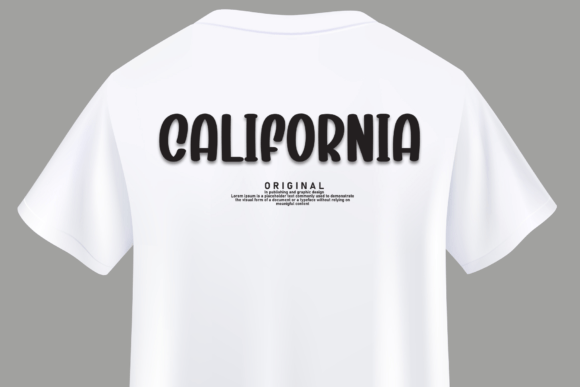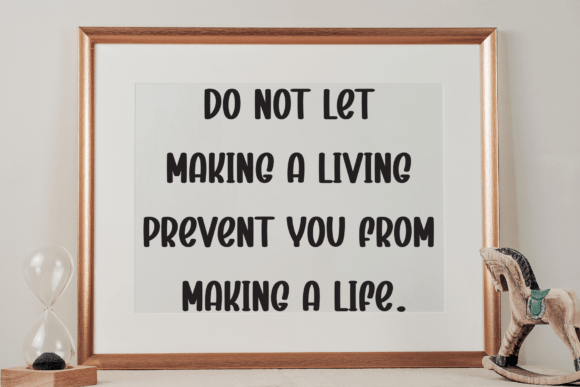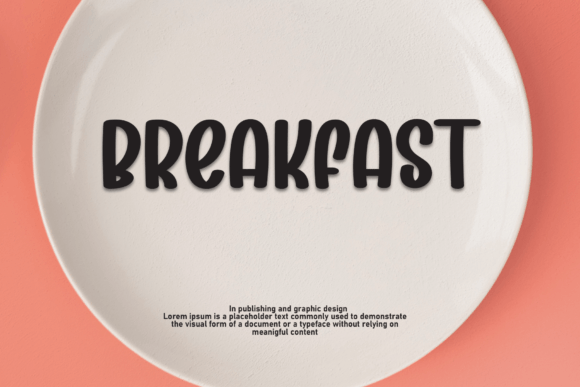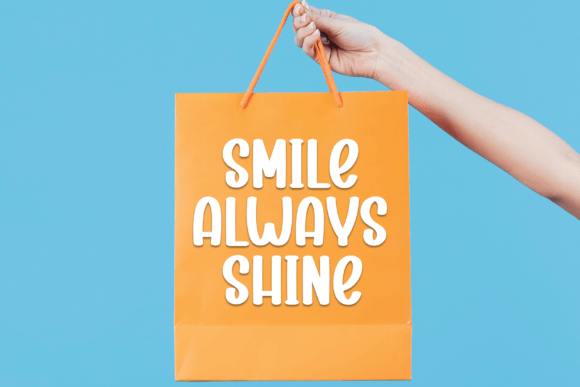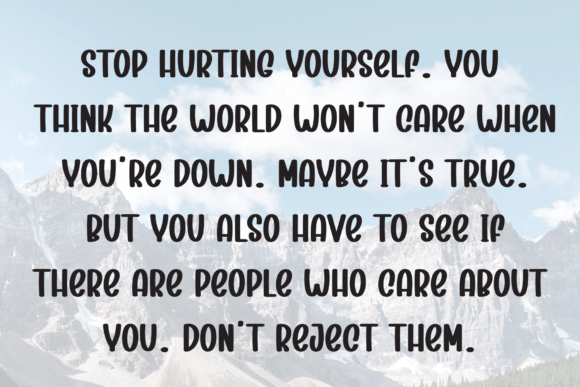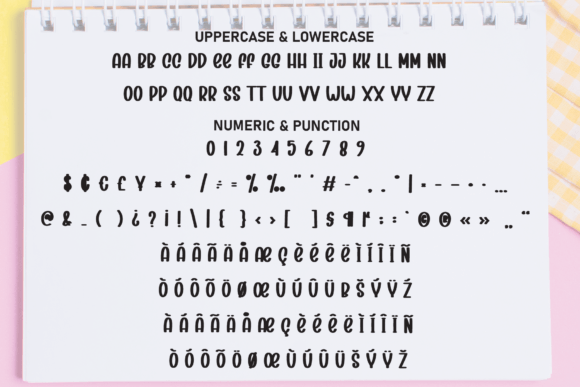
Discover the Charm of Good Notes Font: Elevate Your Designs with a Relaxed, Handwritten Touch
In the world of typography, fonts play a crucial role in conveying the tone and personality of a design. For those seeking a casual, yet charming aesthetic, Good Notes font is an excellent choice. This handwritten font is designed to capture a relaxed and friendly vibe, making it perfect for personal projects, social media, and invitations. In this article, we’ll explore the features and benefits of Good Notes font, and how it can add a touch of warmth and authenticity to your designs.
The Essence of Good Notes Font
Good Notes font is a casual handwritten font that boasts natural, flowing strokes. Its effortless style is reminiscent of handwritten notes, making it an ideal choice for designers and crafters looking to add a personal touch to their work. The font’s relaxed vibe is perfect for creating a sense of warmth and approachability, making it suitable for a wide range of applications, from social media graphics to wedding invitations.
Key Features of Good Notes Font
- Natural and Flowing Strokes: Good Notes font features natural, flowing strokes that give it a handwritten feel.
- Casual and Relaxed Vibe: The font’s casual style is perfect for creating a relaxed and friendly atmosphere in your designs.
- Easy to Read: Good Notes font is designed to be easy to read, making it suitable for body text and headings.
- Versatile: The font is versatile and can be used for a wide range of applications, from personal projects to commercial designs.
Benefits of Using Good Notes Font
So, why choose Good Notes font for your designs? Here are just a few benefits of using this charming font:
- Adds a Personal Touch: Good Notes font adds a personal touch to your designs, making them feel more approachable and relatable.
- Creates a Relaxed Atmosphere: The font’s casual style helps to create a relaxed atmosphere, perfect for designs that aim to convey a sense of friendliness and approachability.
- Enhances Readability: Good Notes font is designed to be easy to read, making it perfect for body text and headings.
- Versatile and Adaptable: The font is versatile and can be used for a wide range of applications, from social media graphics to wedding invitations.
Using Good Notes Font in Your Designs
Good Notes font is easy to use and can be incorporated into your designs in a variety of ways. Here are a few tips for using the font effectively:
- Pair with Other Fonts: Good Notes font pairs well with other fonts, making it easy to create a unique and visually appealing design.
- Use for Headings and Body Text: The font is suitable for both headings and body text, making it a great choice for designs that require a lot of text.
- Experiment with Colors: Good Notes font looks great in a variety of colors, so don’t be afraid to experiment and find the perfect hue for your design.
Good Notes font is a charming and versatile font that can add a relaxed, handwritten touch to any design. Its natural, flowing strokes and casual style make it perfect for personal projects, social media, and invitations. With its ease of use and adaptability, Good Notes font is an excellent choice for designers and crafters looking to create warm and authentic designs. So why not give it a try and see how it can elevate your designs?
Whether you’re a seasoned designer or a crafty DIY enthusiast, Good Notes font is a great addition to your typography toolkit. Its unique blend of elegance and friendliness makes it an excellent choice for a wide range of applications. So go ahead, get creative, and discover the charm of Good Notes font for yourself!